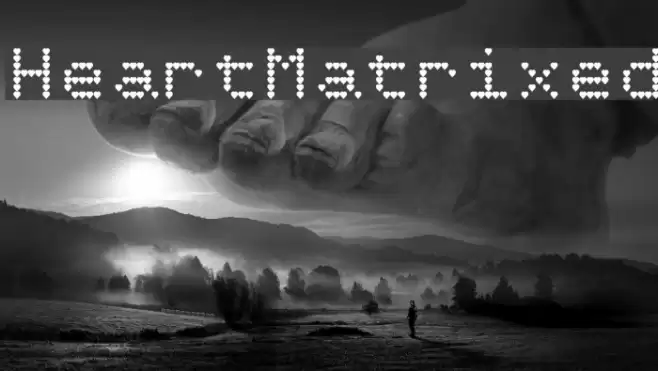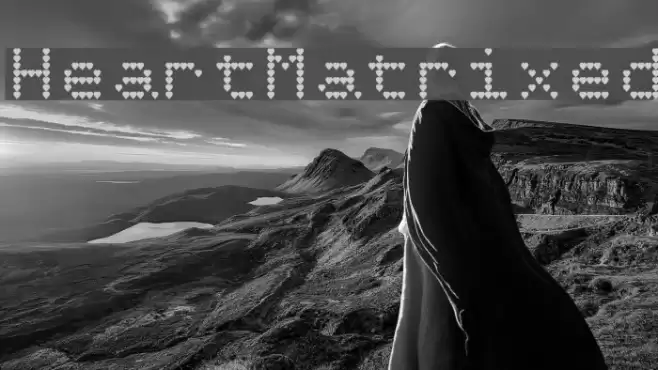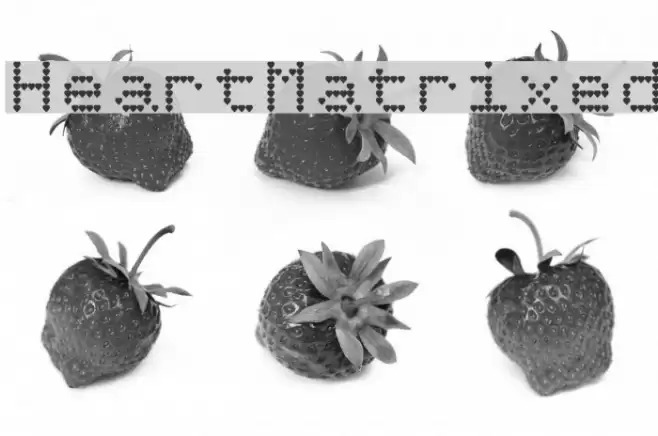
HeartMatrixed Font
HeartMatrixed Description
This font features a unique and playful design where each character is composed of small heart shapes arranged in a grid-like pattern. The characters maintain a consistent structure, giving the font a pixelated appearance. The use of hearts adds a whimsical and romantic touch, making it stand out as a decorative typeface. The uppercase and lowercase letters, as well as numbers and special characters, are all crafted with the same heart motif, ensuring uniformity across the font. This design is perfect for projects that aim to convey love, affection, or a playful tone.
A decorative font made of heart-shaped pixels, ideal for romantic or playful themes from Dotted fonts.
- Proposed Projects: Valentine's Day cards, wedding invitations, love-themed posters, playful branding, and children's book covers.